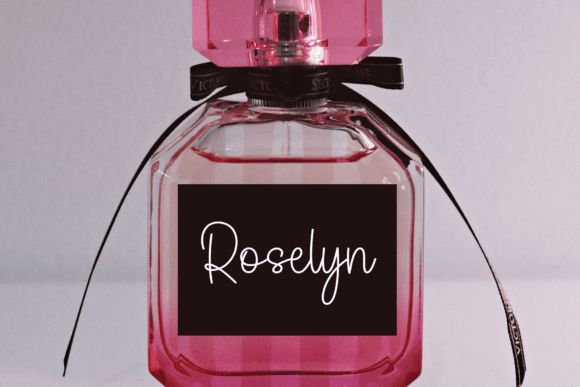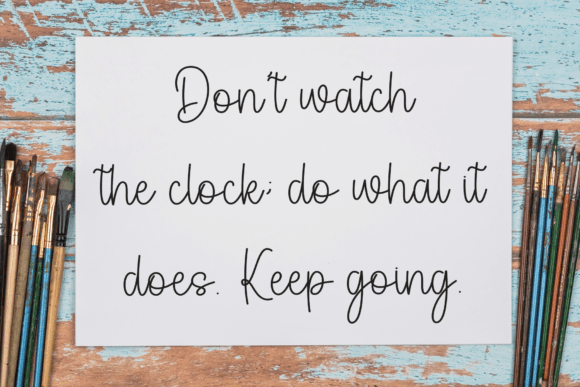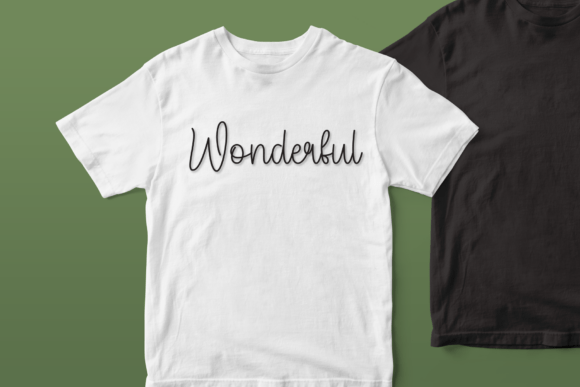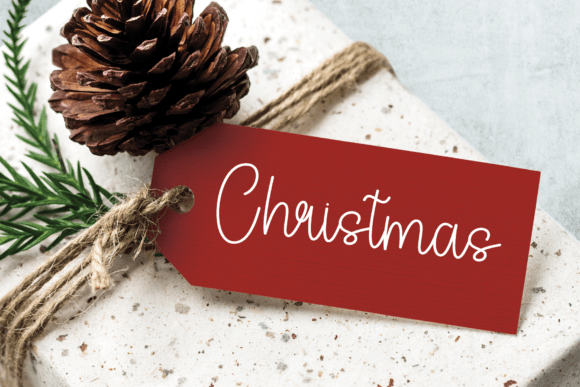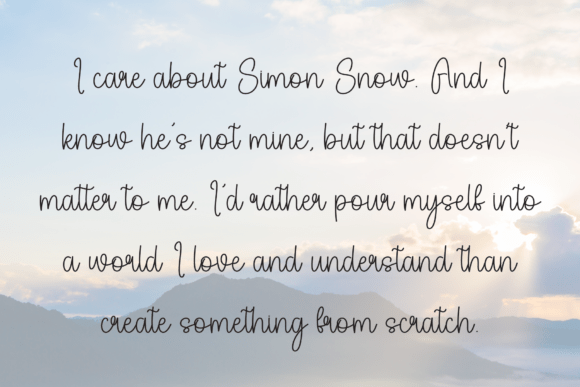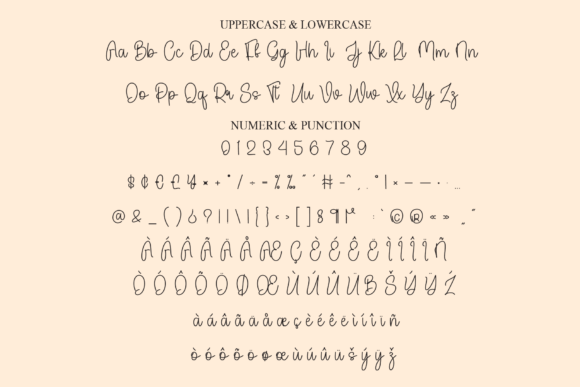
Discover the Charm of Cowboy Font: A Delightful Handwritten Script
As a designer, I’ve had my fair share of moments where I’ve struggled to find the perfect font for a project. I recall working on a wedding invitation design for a dear friend, wanting to create something that captured the essence of their special day. The challenge was finding a font that was both elegant and playful. That’s when I stumbled upon Cowboy Font, a delightful handwritten script that added a sprinkle of fun to my design. In this article, I’ll share my experience with Cowboy Font, its features, and how to make the most of it in your designs.
A Personal Review of Cowboy Font
Cowboy Font has quickly become one of my go-to fonts for projects that require a touch of whimsy. Here’s what I love about it:
- ✨ Adorable aesthetics that add a playful touch to any design
- ✅ Easy to read, even in smaller font sizes
- 💕 Perfect for wedding invitations, cards, and other designs that require a romantic feel
- 🎨 Versatile and works well with a variety of design styles
While Cowboy Font is a beautiful font, it’s not without its quirks. Here are a few things to keep in mind:
- 🤔 Some letters may appear a bit inconsistent in terms of spacing, which can affect the overall flow of the text
- ⚠️ Limited availability of special characters and glyphs, which may limit its use in certain designs
The Story Behind Cowboy Font
Cowboy Font was designed with the intention of creating a font that captured the essence of the American West. The designer wanted to create a font that was both playful and elegant, perfect for designs that required a touch of whimsy. The result is a font that is both charming and versatile, perfect for a variety of design projects.
| What is Cowboy Font best used for? | Cowboy Font is best used for designs that require a playful and elegant touch, such as wedding invitations, cards, and other romantic designs. |
| Is Cowboy Font suitable for body text? | While Cowboy Font is easy to read, it’s best used for headings and titles rather than body text. |
Overall, Cowboy Font is a delightful handwritten script font that adds a sprinkle of fun to any design. With its adorable aesthetics and versatile nature, it’s perfect for designers, crafters, and creative hobbyists looking to add a touch of whimsy to their projects.